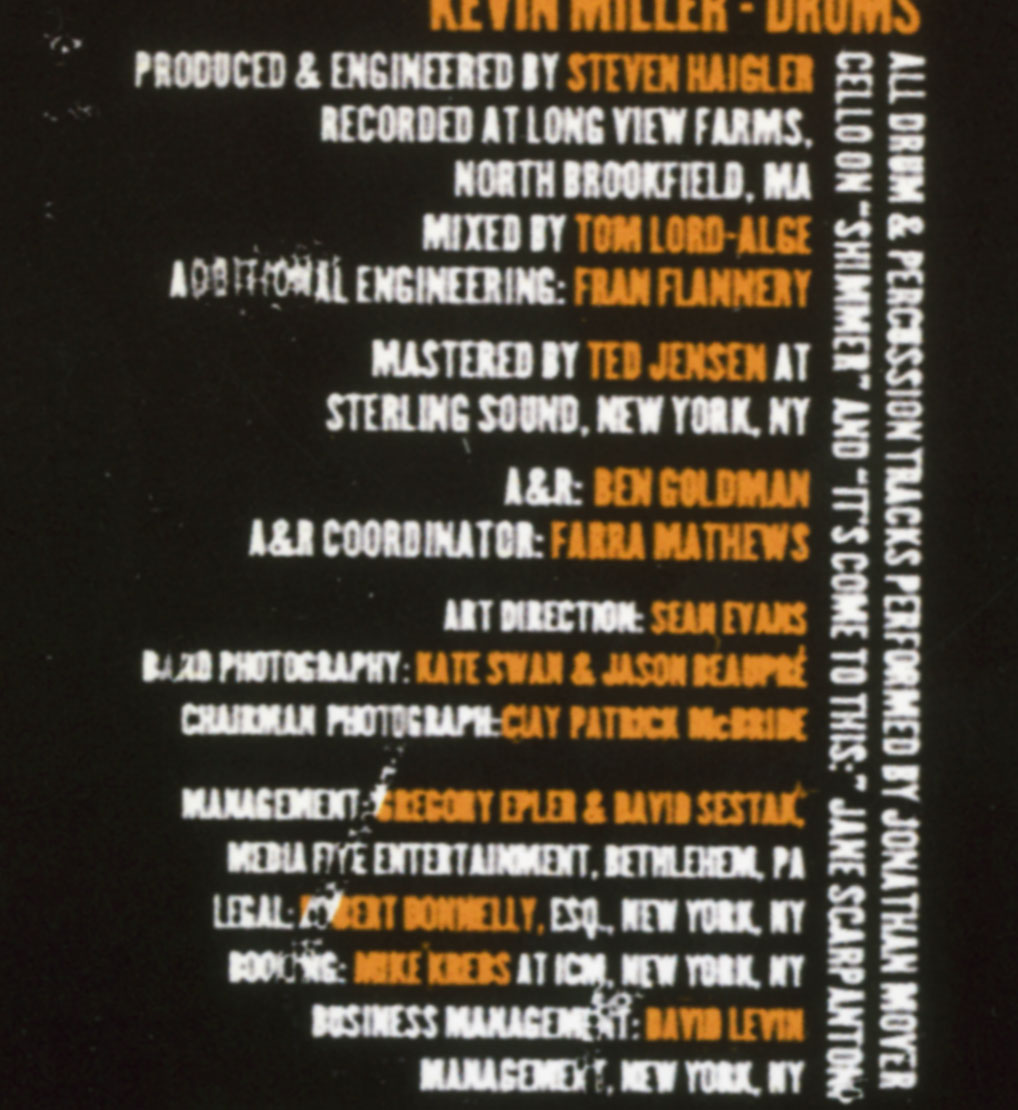
cd font for artist "Fuel"
hi i'm looking to ID this font from 1998-ish. it was used on fuel's debut CD "sunburn". i know i've seen it before but can't ID it. sorry for the low quality image references.
Impossible to identify from these low resolution, poor quality scans - but you could try looking at Helvetica Ultra Compressed. There are many variants by different font companies in the Helvetica world, but I recon you'll find something pretty close.
here's a slightly better image: